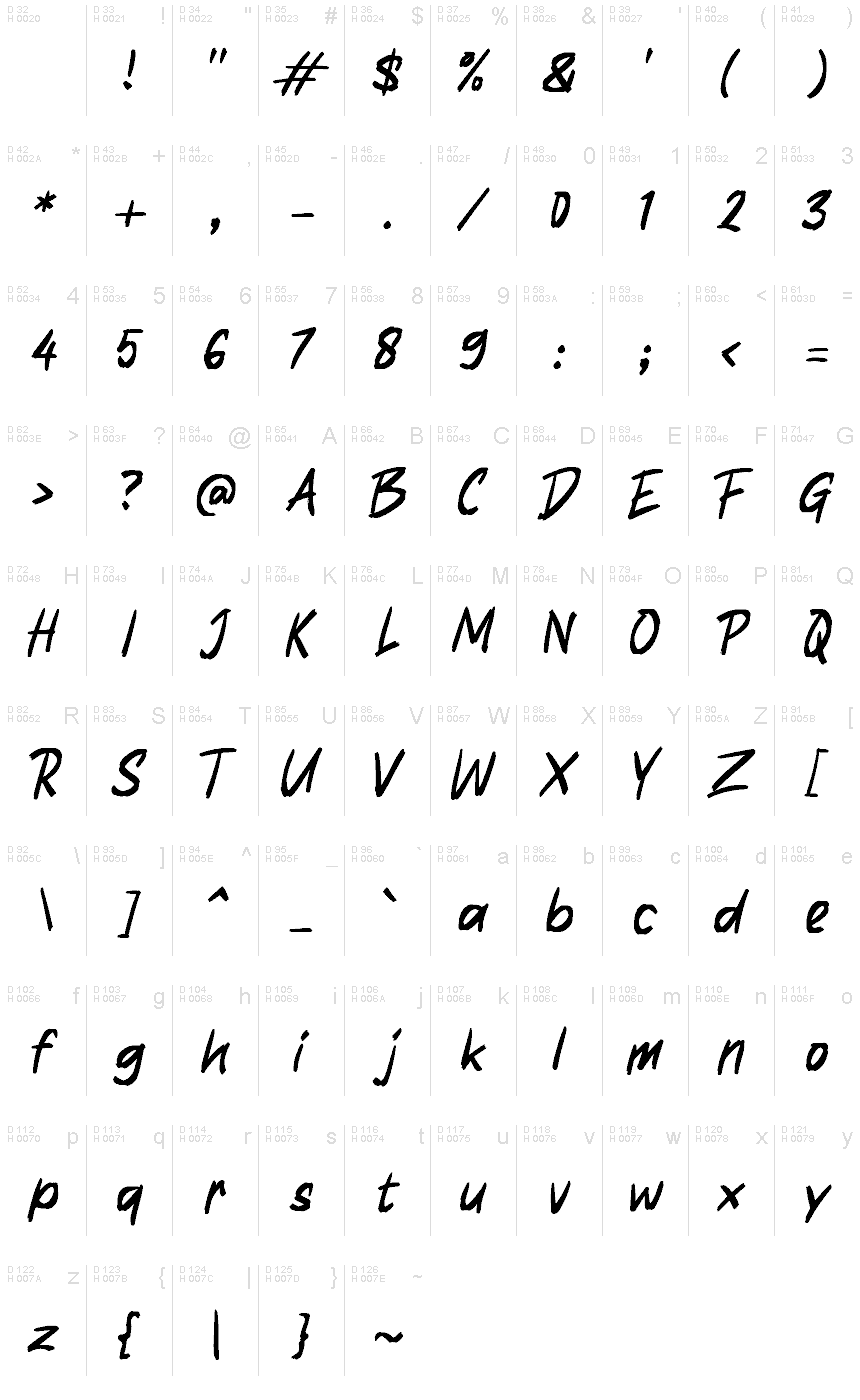
Izinkan
Izinkan font, designed by wep, is a brush typeface with an energetic flair and casual aesthetic. With expressive handwritten strokes, it seamlessly blends a modern touch with traditional elements, making text feel lively and dynamic. Its natural flow and creativity enhance any design, captivating the audience's attention effortlessly.
This free brush font suits branding projects, product packaging designs, book covers and titles for magazines or newspapers. Other cases include greeting cards, wedding invitations cards as well as social media posts even when used in smaller print sizes like logos too!